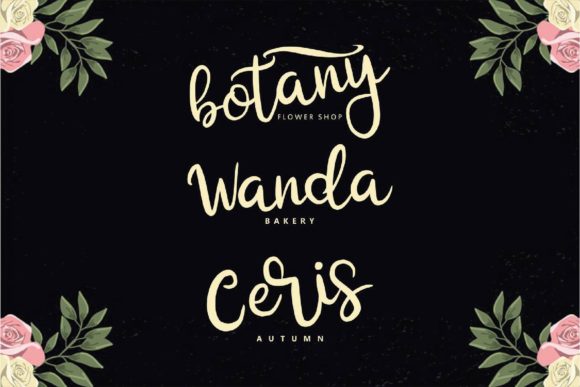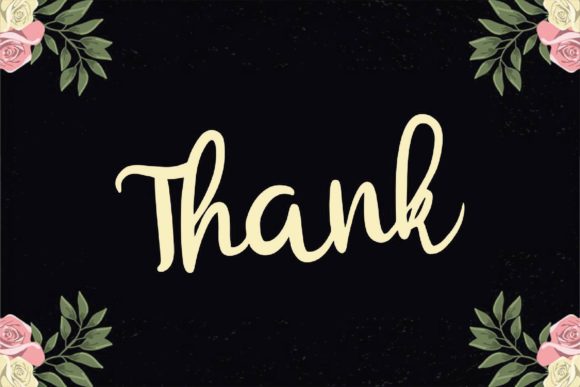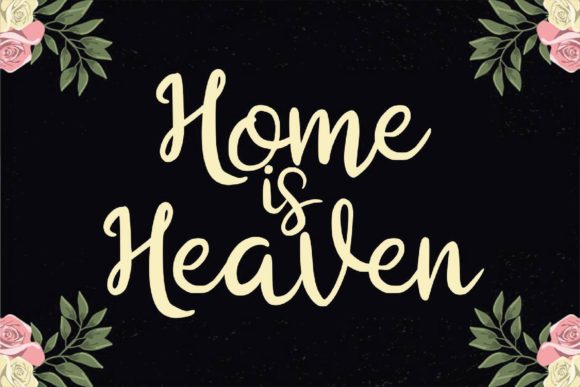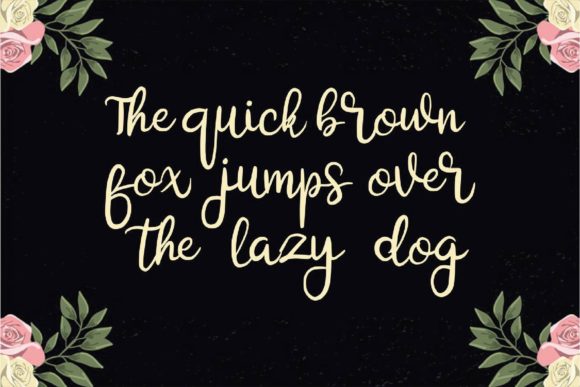
HomeScript FontsBella Marwa Font Script Fonts Bella Marwa Font FacebookXPinterestWhatsApp Bella Marwa Font Poster 2 Bella Marwa Font Poster 3 Bella Marwa Font Poster 4 Bella Marwa Font Poster 5 About Bella Marwa Font Bella Marwa is a sweet and lovely script that will turn any design project into a true standout! DOWNLOAD ON CREATIVE FABRICAThis font is sold and delivered by Creative Fabrica. Font Canyon may earn a commission if you buy through this link. People also explored Blueberry Eyes Font Quotesa Font Birani Font Ranchel Font Ariesta Moon Duo Font Bearus Font Anaya Font Santa’s Coloring Font Bali Sky Font 345 0 TagsBella Marwa Font Previous articleDesigner Signature FontNext articleAnia Gamelia Font LEAVE A REPLY Cancel reply Comment: Please enter your comment! Name:* Please enter your name here Email:* You have entered an incorrect email address! Please enter your email address here Website: Save my name, email, and website in this browser for the next time I comment. Personal Use Free Pumpkins Candles Personal Use Free Read more about this font Urkelian Personal Use Free Read more about this font Pasile Personal Use Free Read more about this font Letter Clips Personal Use Free Read more about this font BLOG Top 10 Handwritten Fonts That Elevate Your Designs Top 10 Handwritten Fonts That Will Elevate Your Designs Handwritten fonts bring a warm, personal touch to every creative project. Whether you're designing logos, invitations,... Best Fonts for T-Shirt Design – Top 2025 Picks Modern Sans-Serif Fonts That Brands Love in 2025 Where to Buy American Fonts Online in 2024